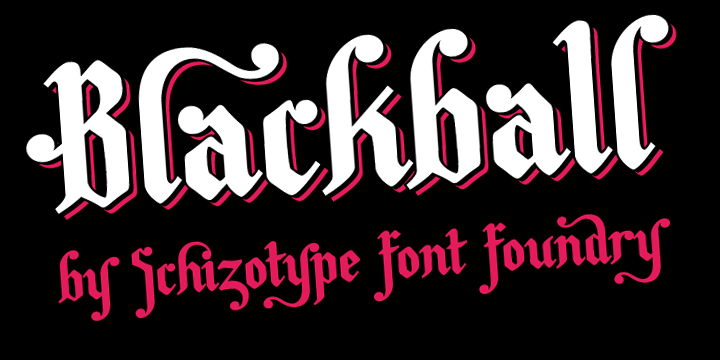
Blackball is an attractive blackletter font with ball terminals. Yes, it did take a while to think up the name!
This is a versatile font, at home equally on Christmas cards and gothic horror stories. There is some clever OpenType programming at its heart, which means ligatures, alternate characters and swash characters (69 in total) can all be set to substitute automatically as you type. What’s more, this intelligent font always checks that there is room for the alternate characters before applying them.
Have a play about with the different OpenType options to see what it can do.